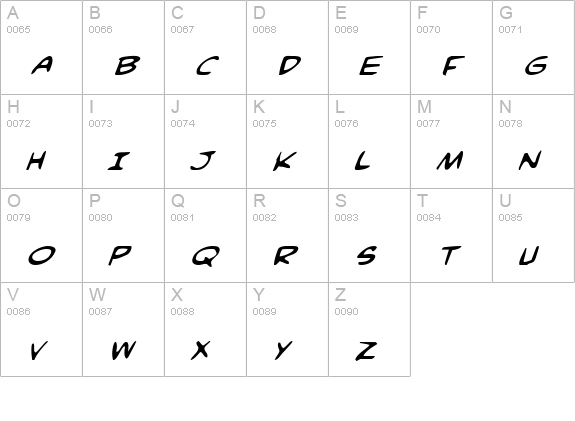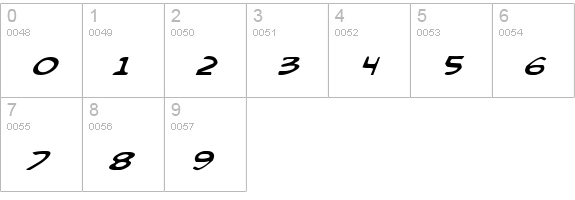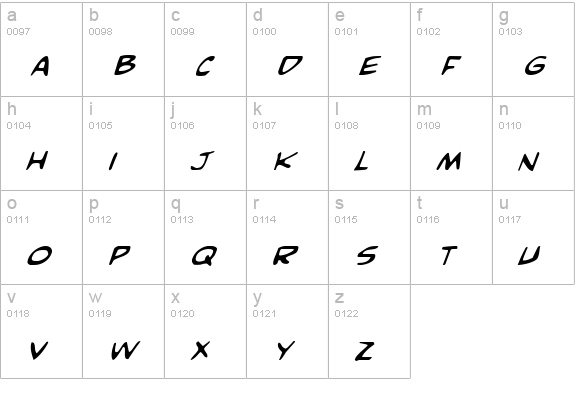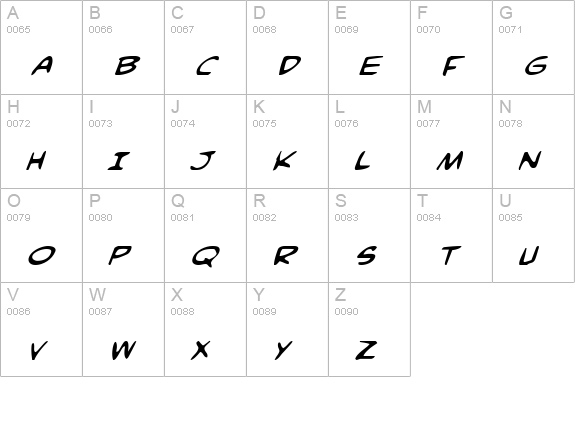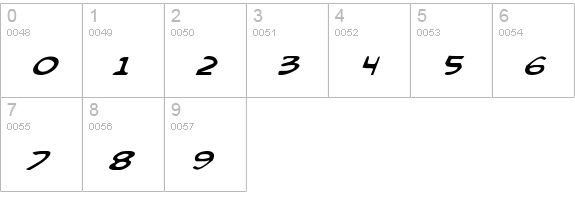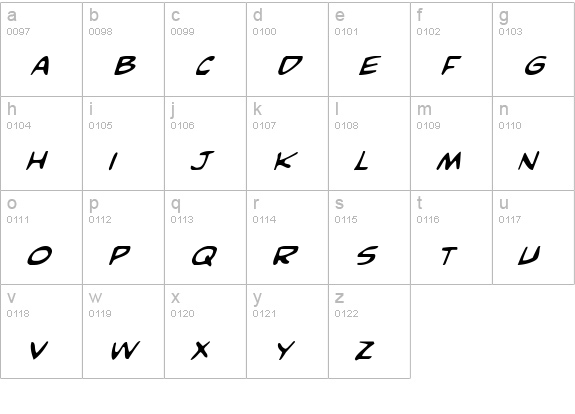
Comic Book Commando Italic is a comfortable, highly readable, italic variant in the Comic typeface family \xE2\x80\x94 well suited to long-form body text, articles, and editorial content.
Comic Book Commando Italic font is a bold and dynamic typeface that exudes strength and action. With its sharp angles and sleek lines, this font is perfect for conveying a sense of power and excitement in your designs. Whether you're creating comic books, posters, or digital art, Comic Book Commando Italic will add a touch of flair and boldness to your projects. This font is available for free download at FontsMarket.com, making it accessible to everyone who wants to add a touch of comic book style to their work. So go ahead and unleash your creativity with Comic Book Commando Italic font today!